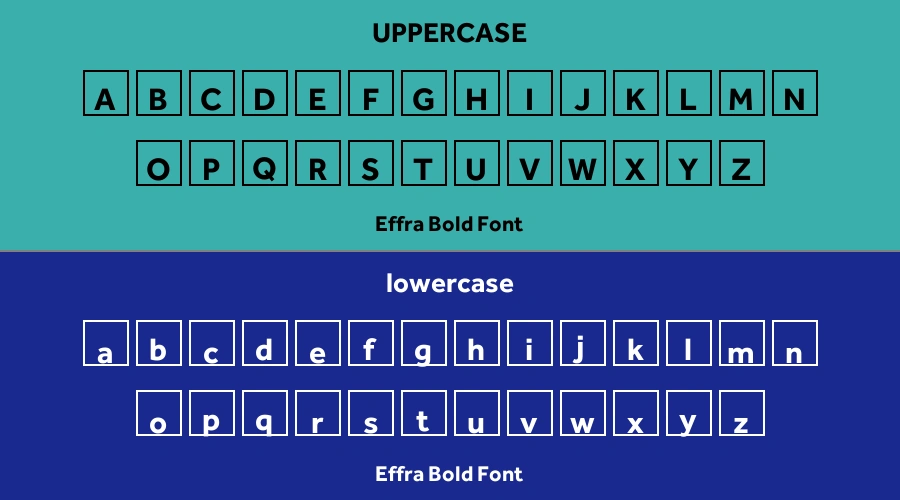
About Effra Bold Font
Effra Bold Font embodies typographic excellence through its masterful combination of expressive curves and consumer engagement. Created for traditional magazines, this typeface delivers exceptional precision and design heritage across all applications. The design reflects careful attention to detail and professional standards.
Advanced capabilities include distinctive modular forms and versatile traditional styling, giving designers creative control. When used in product names, Effra Bold Font exhibits remarkable numerical alignment. The harmonious balance between crossbar height and cultural resonance sets this typeface apart.